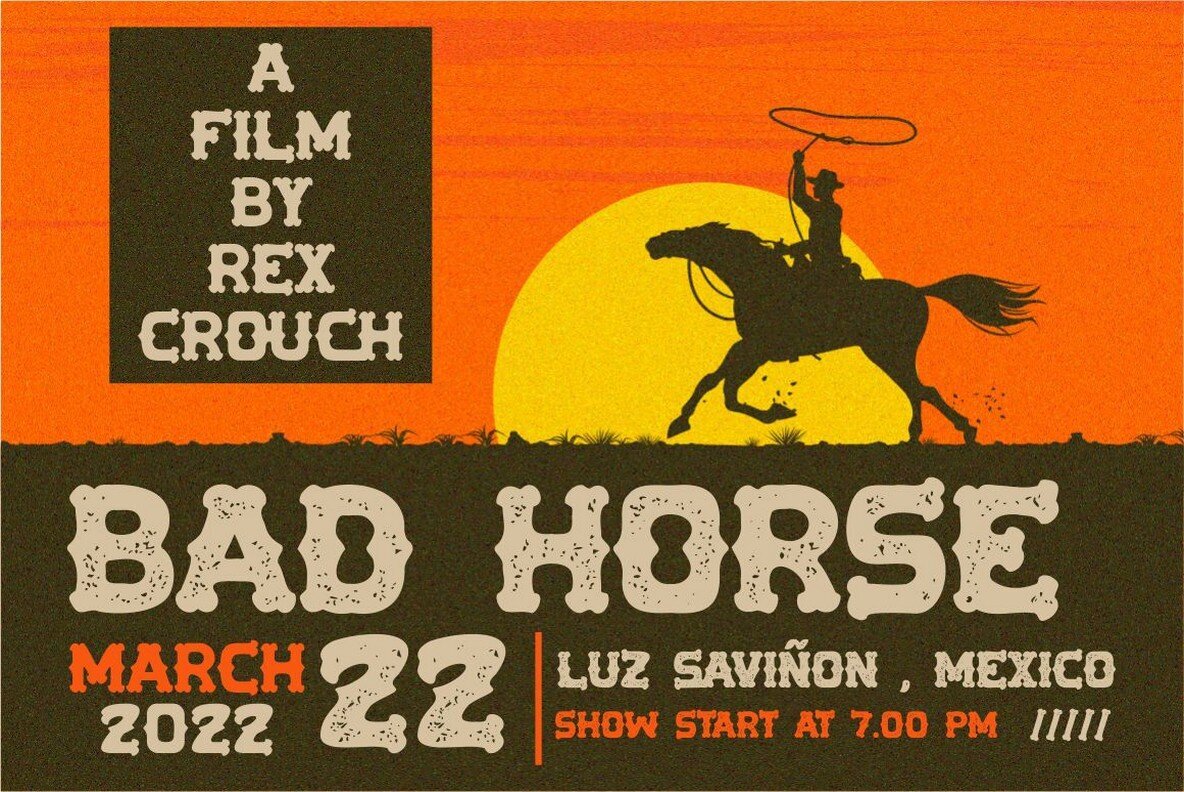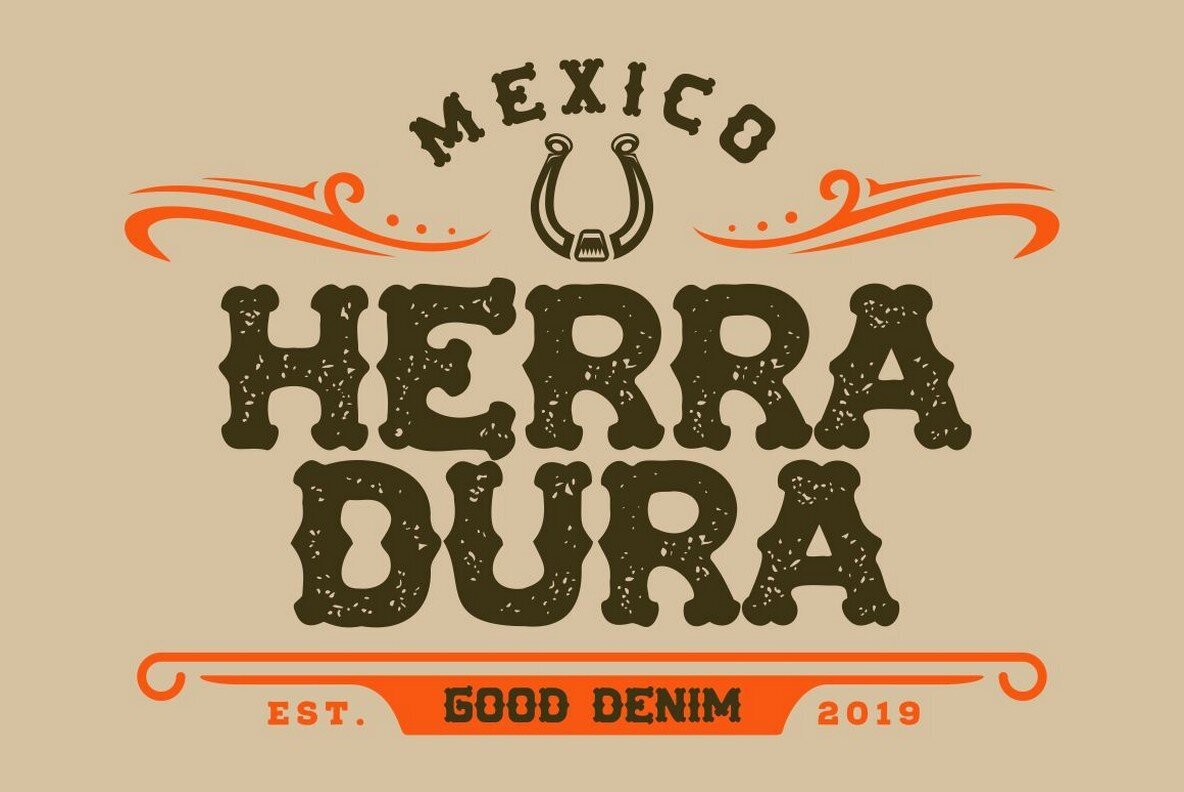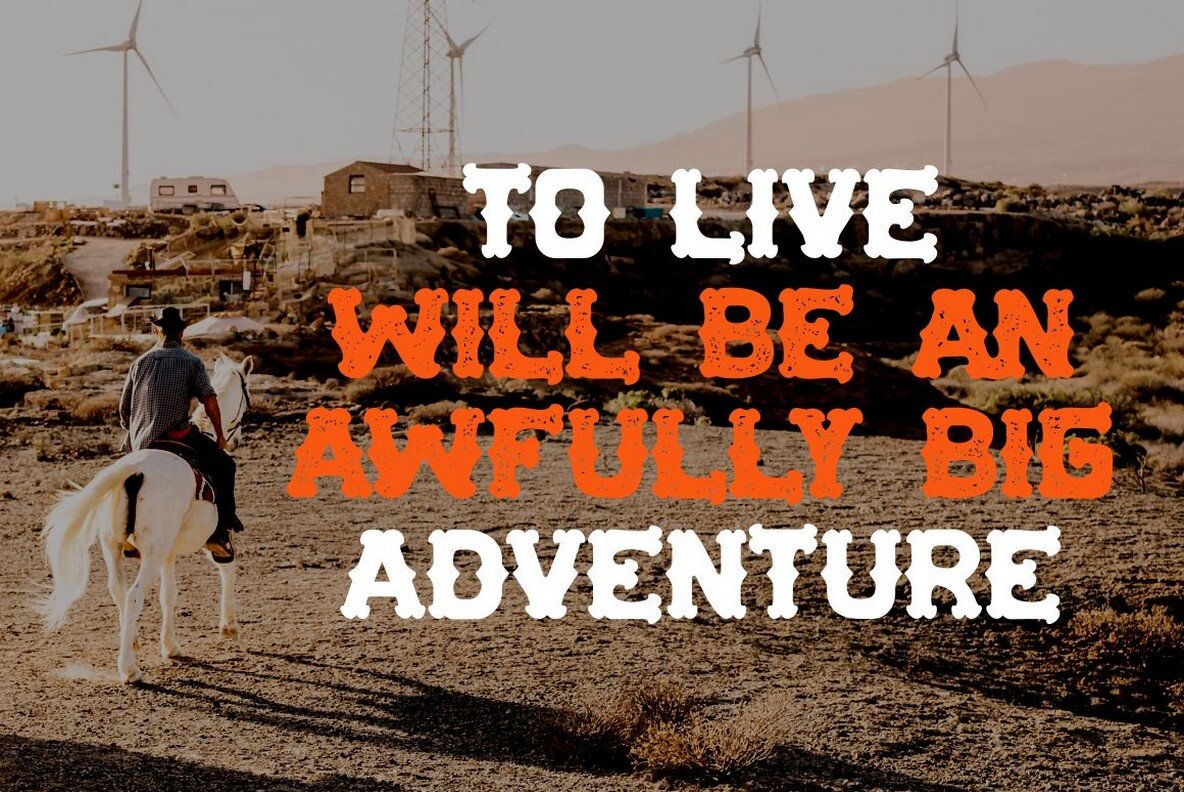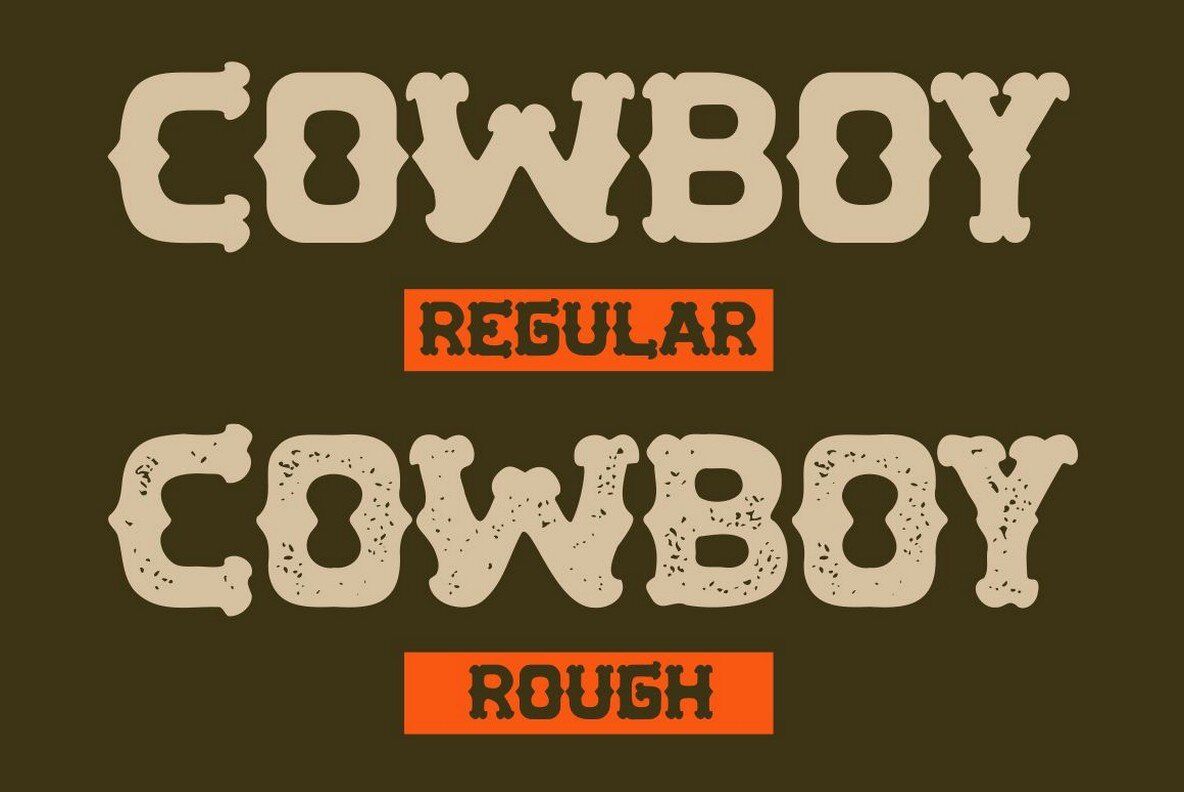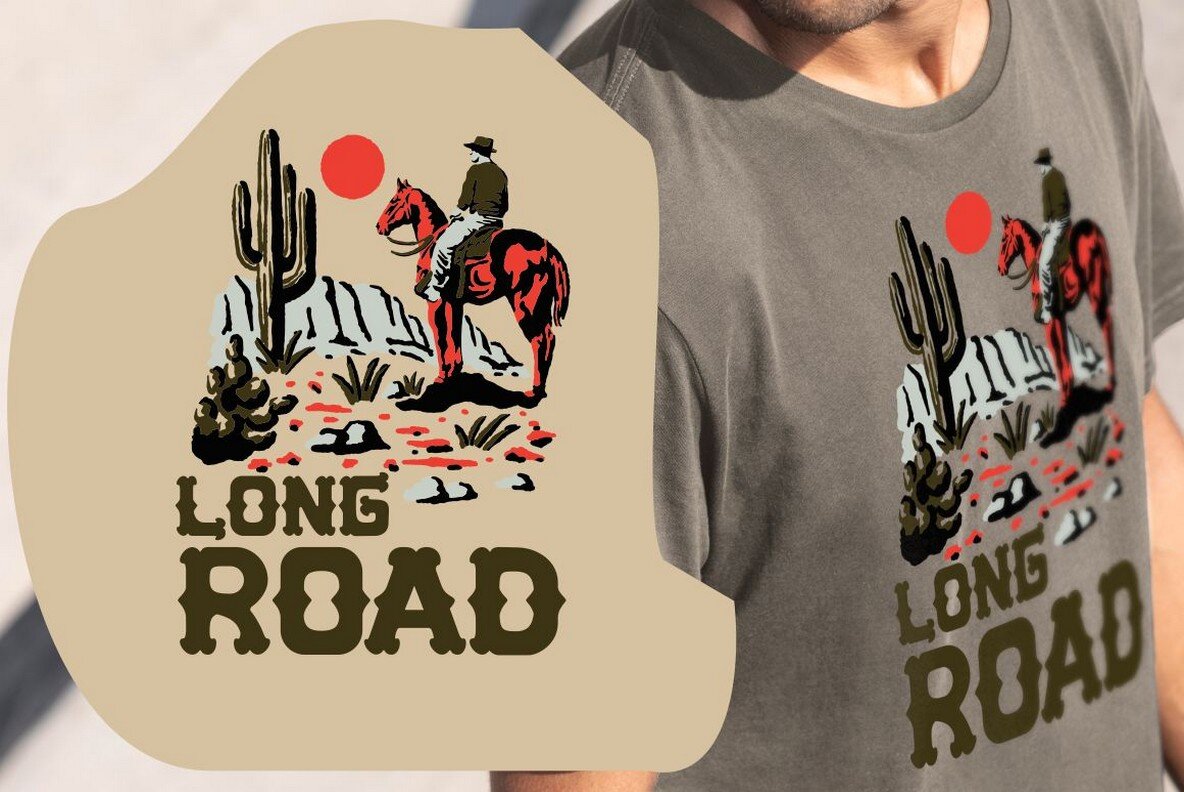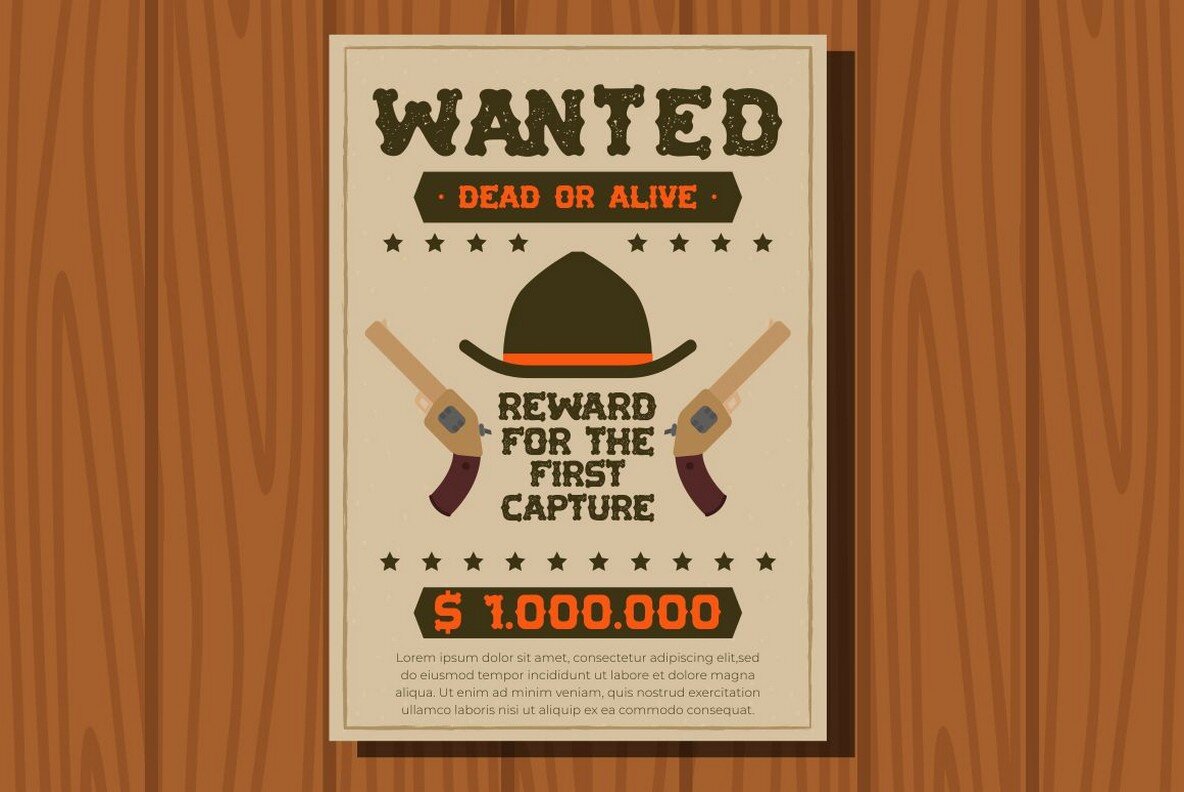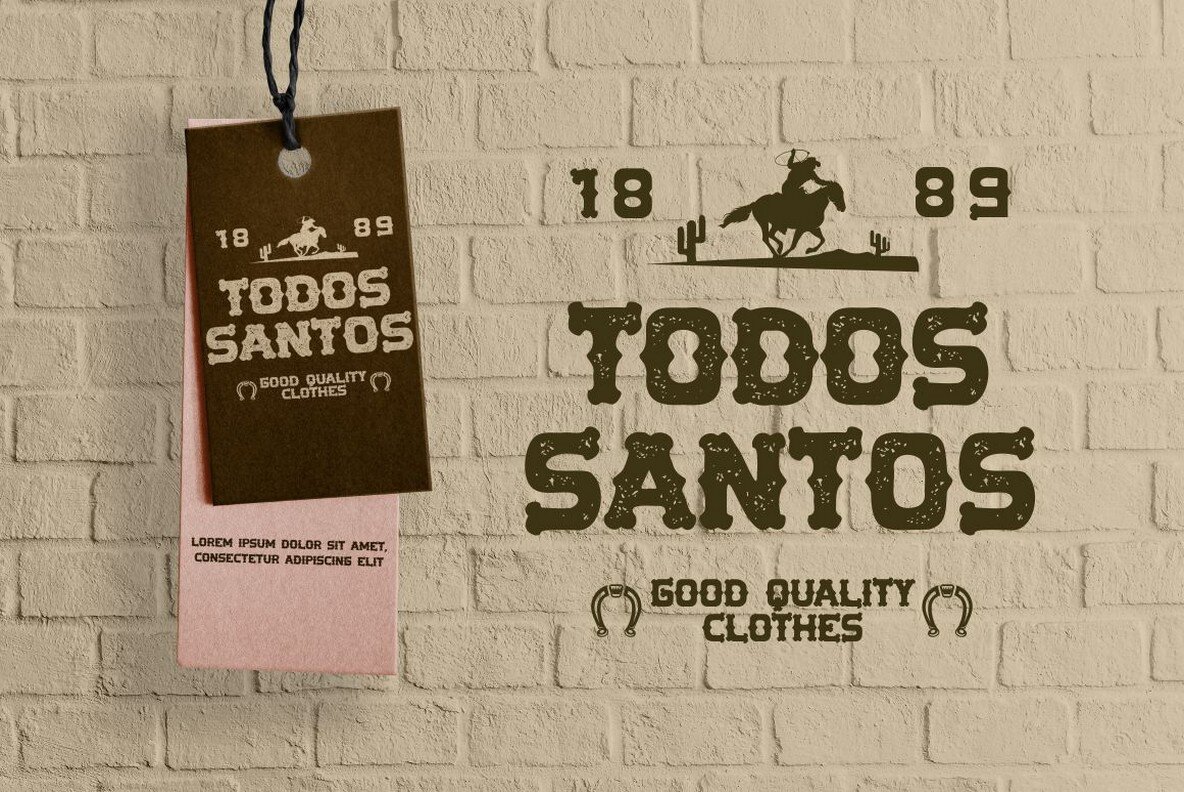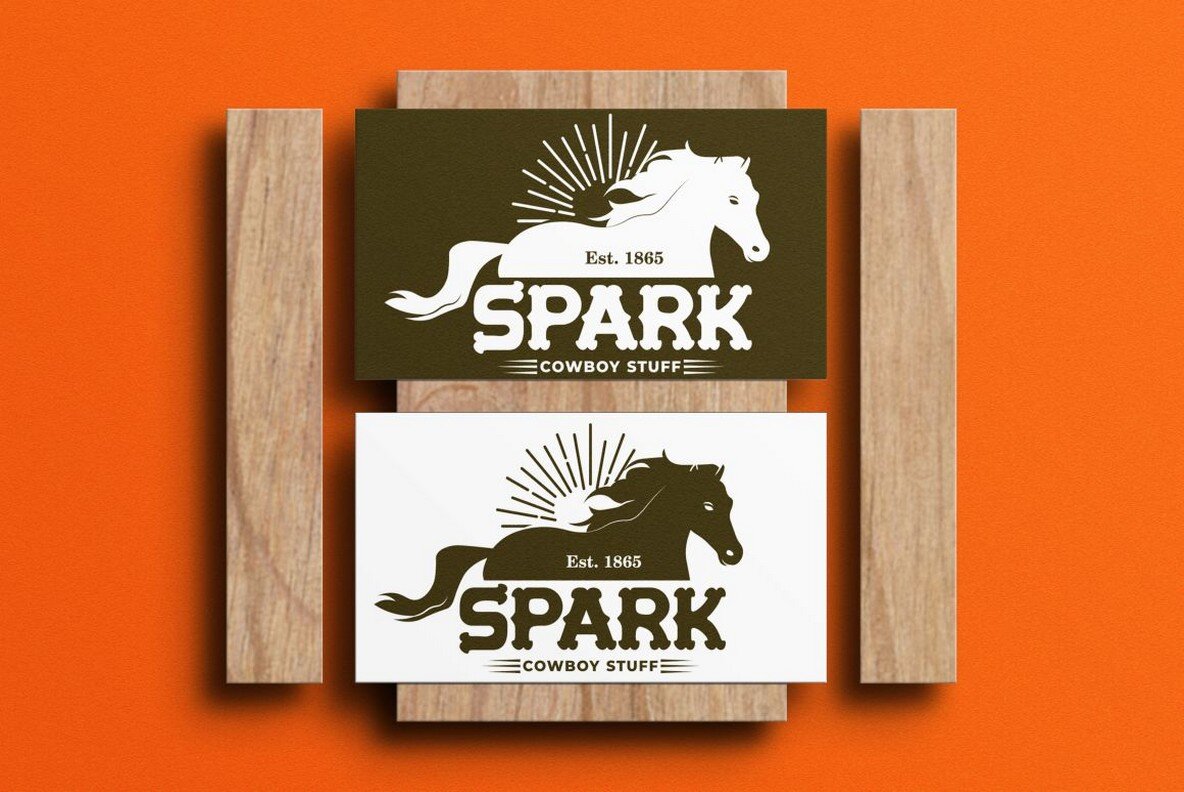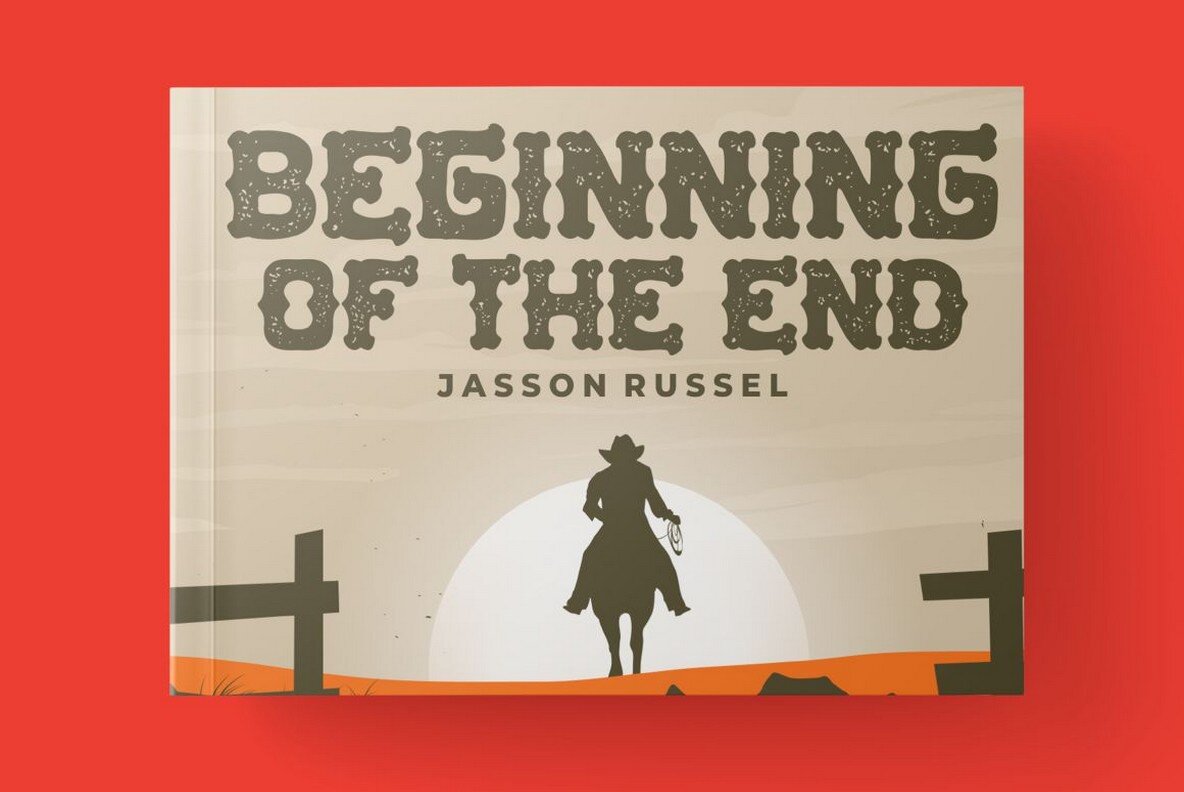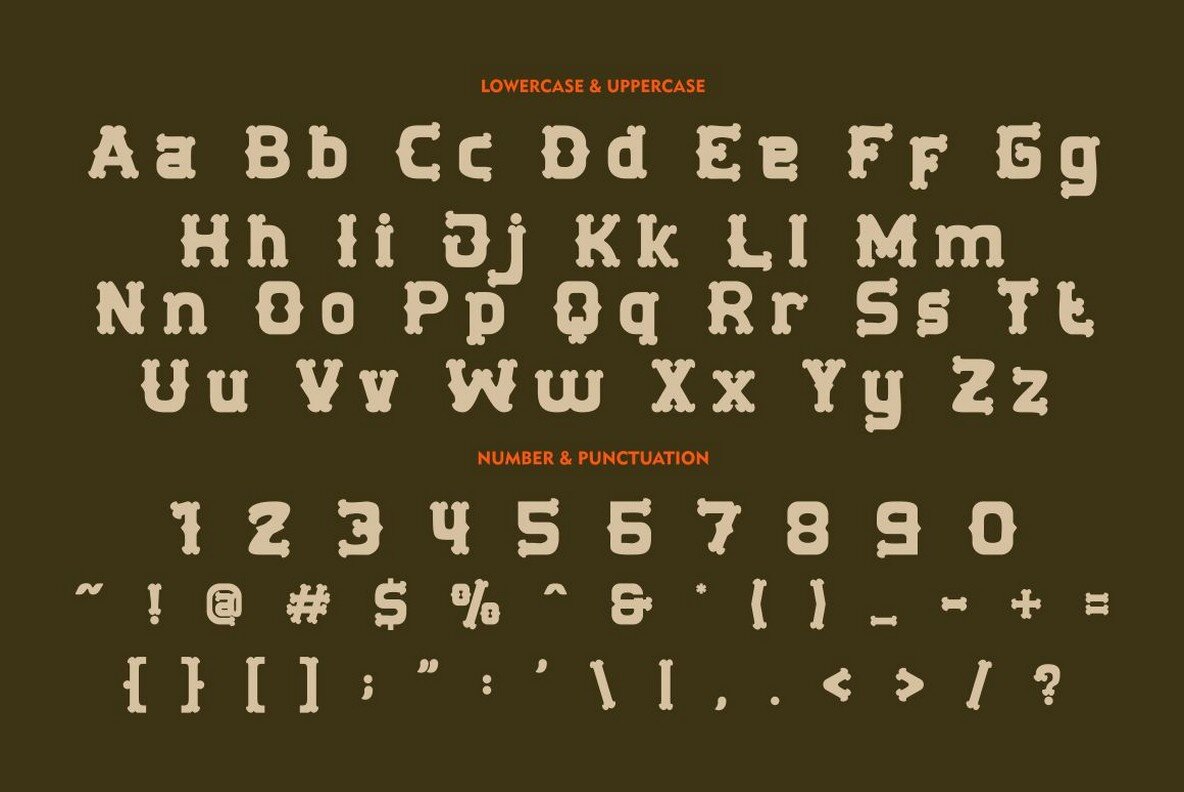
Todos Santos Font
Todos Santos Regular
Todos Santos Stamp
Todos Santos, a slab serif font by Putra Novembria Candra Kusuma, offers a distinctive blend of retro charm and modern flexibility. Drawing inspiration from 1970s posters, this font presents an intriguing irregularity with varied character heights and a non-uniform baseline. Whether used for titles, invitations, headings, covers, or logos, its unique aesthetic suits both nostalgic and contemporary design projects. Features:Todos Santos: A Vintage-Inspired Slab Serif
Comprehensive Character Set
Suitable for a variety of creative contexts, Todos Santos enhances product packaging, merchandise, social media posts, and greeting cards, offering both style and adaptability.